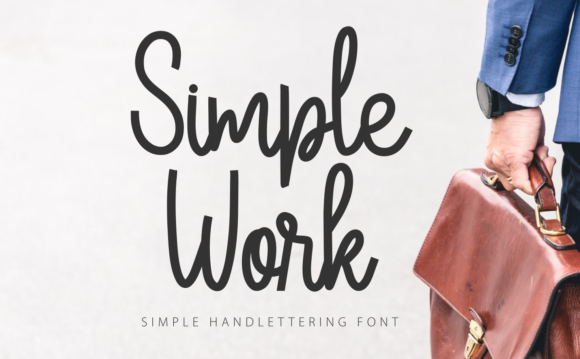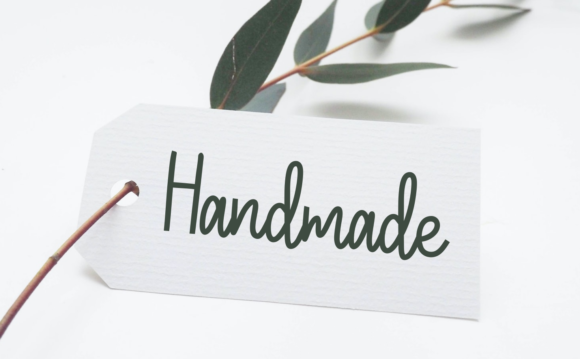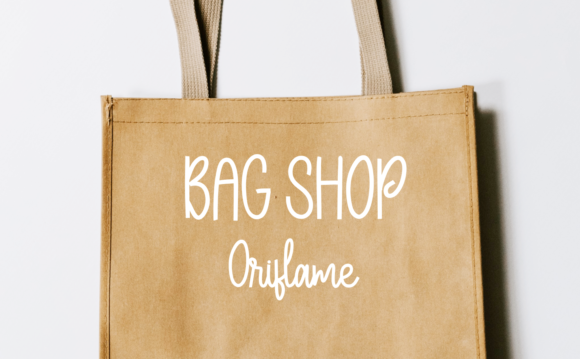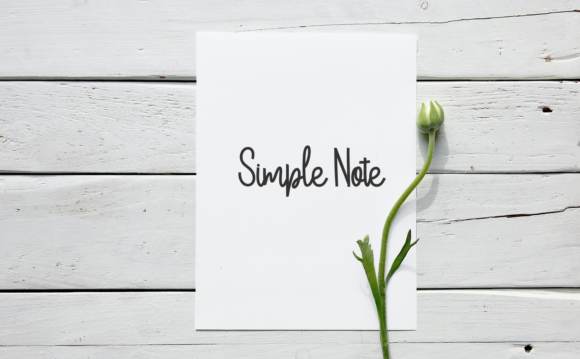
Simple Work Font
About Simple Work Font
Simple Work is a beautiful and neat display font, perfect for making your designs stand out from the crowd. Its characters are perfect for wall displays, wedding invitations, social media post logos, advertisements, product packaging, product designs, labels, photography, watermarks, invitations, stationery, and any project that requires modern typography.